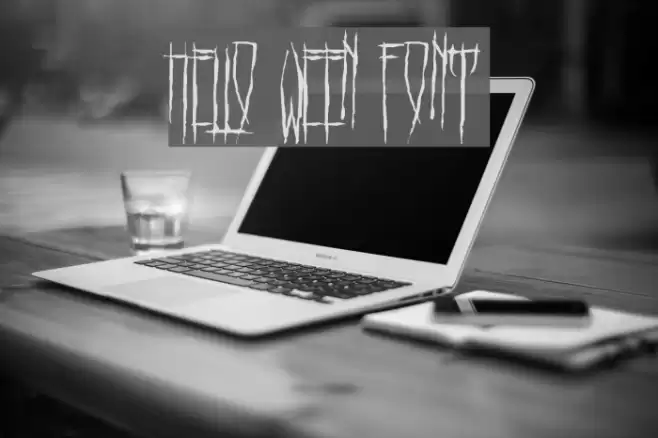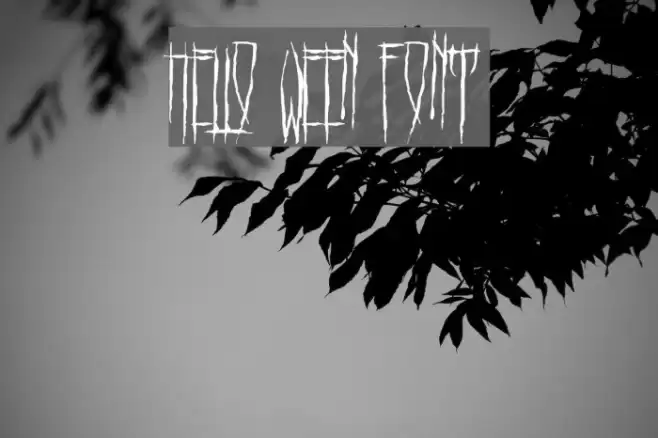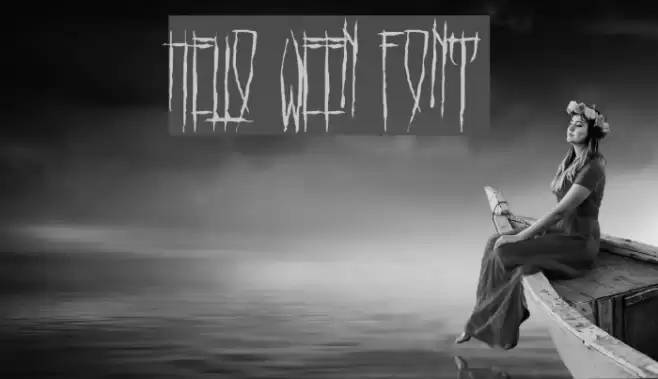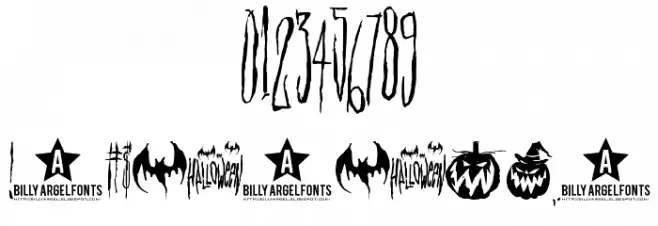
HELLO WEEN FONT Font
HELLO WEEN FONT Description
This font features a spooky, jagged style that evokes a sense of horror and mystery. The characters are elongated and uneven, with sharp, irregular edges that resemble dripping ink or scratches. This design gives it a haunting, eerie appearance, perfect for Halloween-themed projects. The uppercase and lowercase letters maintain a consistent style, with numbers and special characters following the same unsettling aesthetic. The font's unique and dramatic look makes it ideal for creating eye-catching titles or decorative elements.
A spooky, jagged font with an eerie, horror-inspired style from Uncategorized fonts.
- Proposed Projects: Ideal for Halloween invitations, horror movie posters, haunted house flyers, and spooky-themed merchandise.
- Character Spacing: Tight